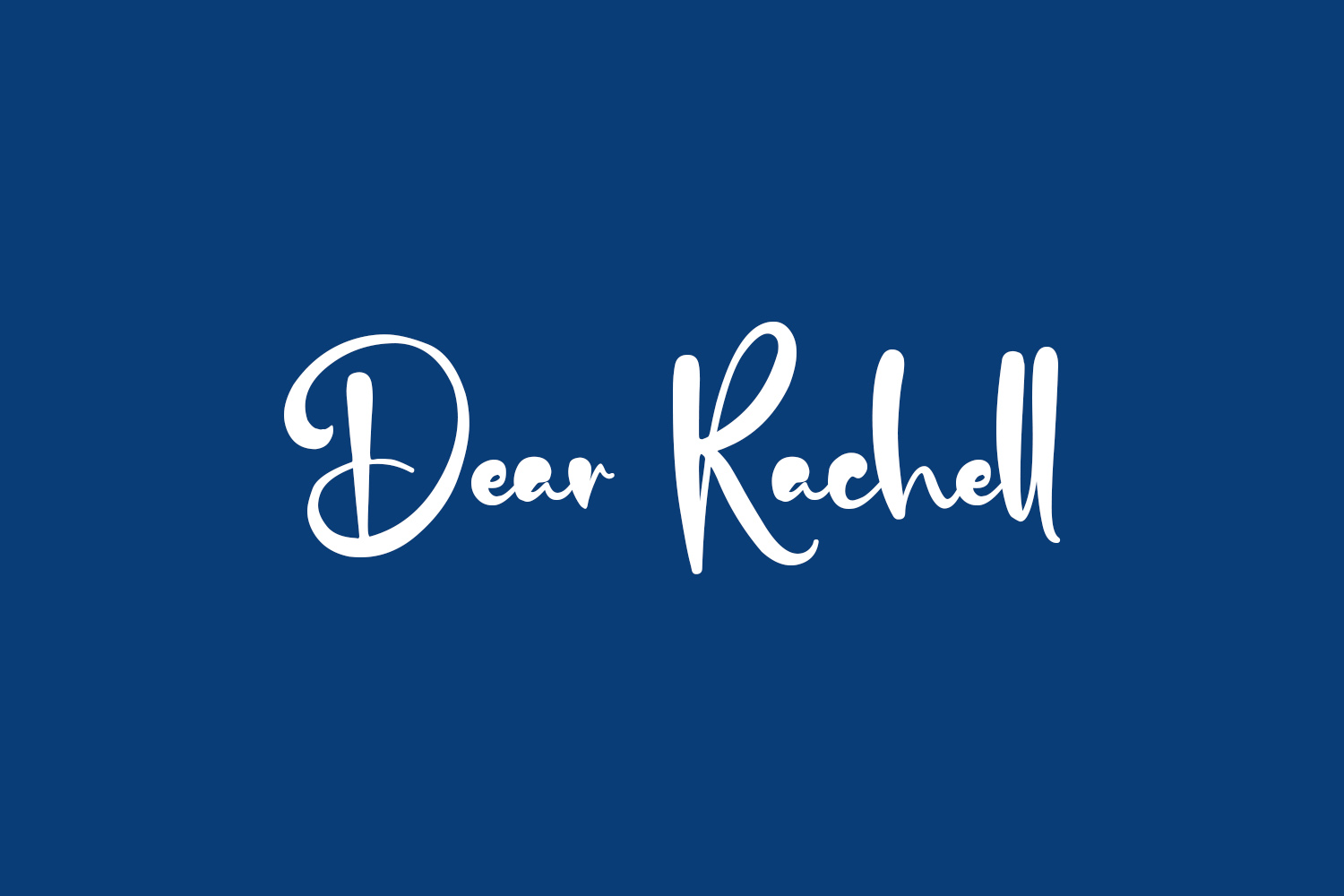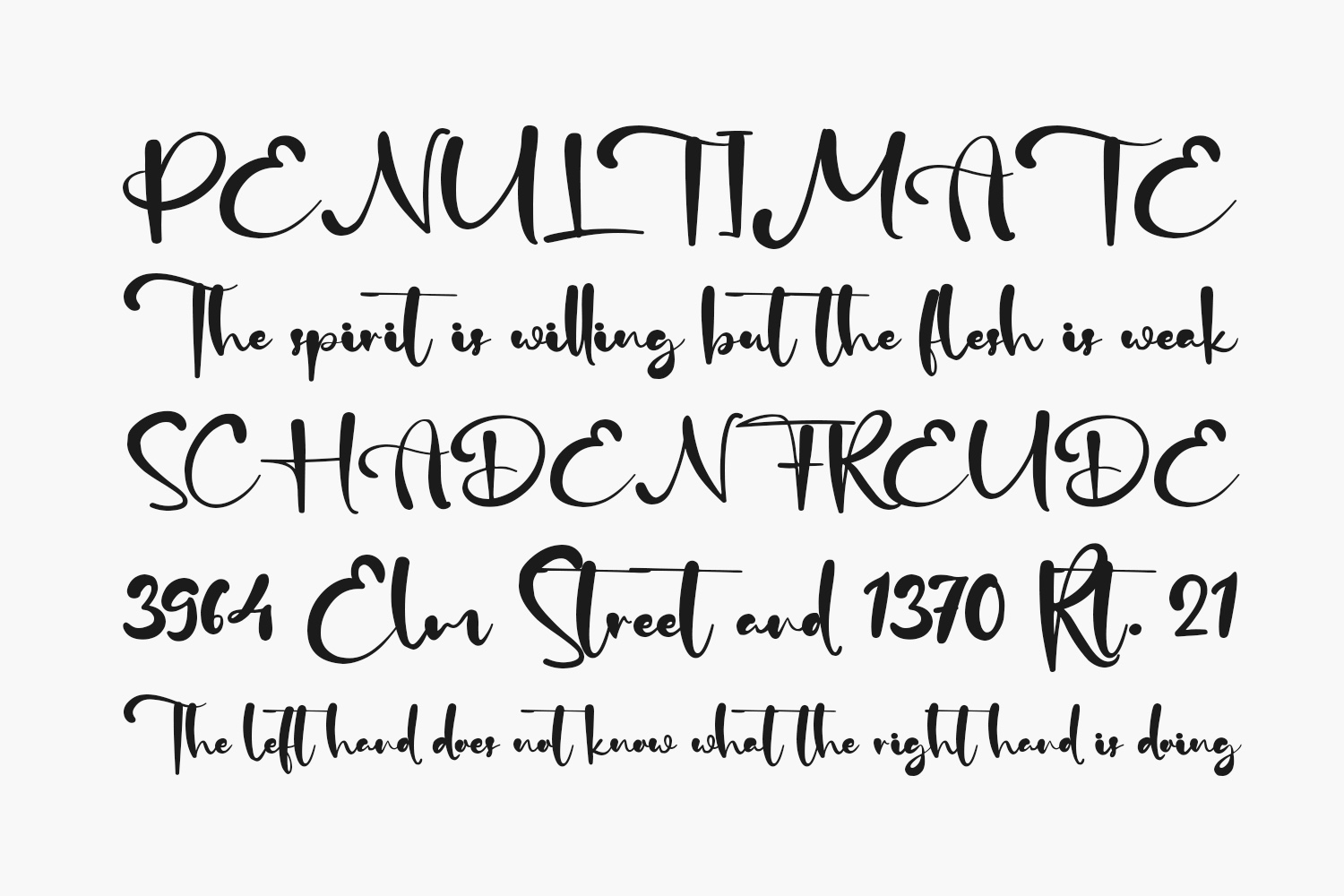
Dear Rachell Free Font is a romantic and sophisticated script font with a feminine and elegant feel. It is perfect for use in wedding invitations, branding, and other formal occasions. The font features delicate and graceful lines, as well as decorative flourishes and swirls, adding a touch of glamour and sophistication to any design. Dear Rachell Font is available in both regular and bold weights, and includes a full set of uppercase and lowercase letters, as well as numerals and punctuation. Whether you’re looking to add a touch of glamour to your designs or simply want a font that stands out from the rest, Dear Rachell Font is a beautiful and refined choice.